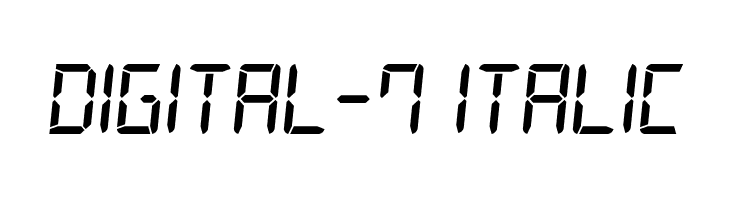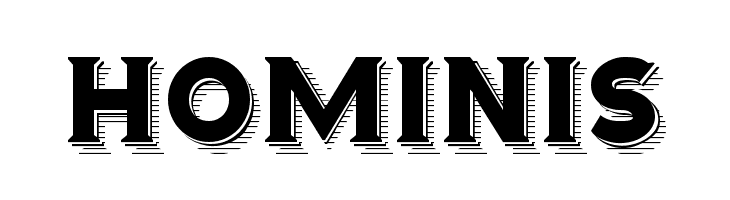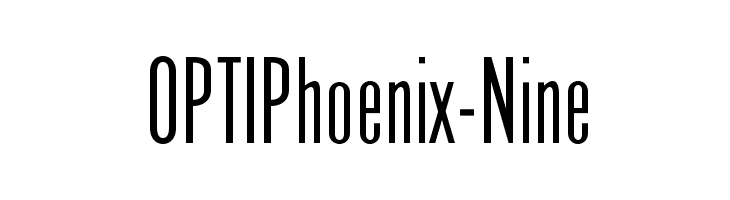
A bold, modern font with rounded edges and a geometric structure.
A modern, geometric outline font with a clean and structured appearance.
An ornate and regal font with intricate details and decorative flourishes.
A playful, bold font with rounded, bubbly characters.
A bold, textured handwritten font with dynamic strokes.
A bold, classic serif font with high contrast and elegant serifs.
A casual, handwritten font with a playful and informal style.
A modern, ultra-condensed font with tall, narrow characters and consistent stroke width.
An elegant, cursive font with flowing lines and graceful curves.
A classic serif font with high contrast and elegant strokes.
A bold, gothic-style font with medieval and modern influences, featuring ornate details.
A bold, geometric font with sharp angles and a modern style.
A bold, handwritten font with a lively and energetic style.
A playful, bold font with a bubble-like design and shadow effect.
A casual, handwritten font with a playful and artistic style.
A whimsical and artistic script font with a handwritten appearance.
A classic serif font with elegant strokes and refined proportions.
A playful, handwritten font with a whimsical and friendly style.
A bold, block-like font with a strong, modern presence.
A bold, italicized sans-serif font with a modern and dynamic style.
A decorative font with characters encased in butterfly designs, perfect for whimsical projects.
A cursive, handwritten font with elegant, flowing strokes.
A bold, decorative font inspired by traditional African patterns.
A bold, modern font with a unique horizontal line pattern.
A playful and energetic script font with smooth, flowing curves.
A classic serif font with an open face design, offering elegance and readability.
A playful, hand-drawn font with bold outlines and diagonal hatching.
A decorative font featuring musical instrument and symbol silhouettes.
A bold, expanded slab serif font with a vintage yet modern appeal.
A bold, italic, futuristic font with geometric precision and a modern aesthetic.